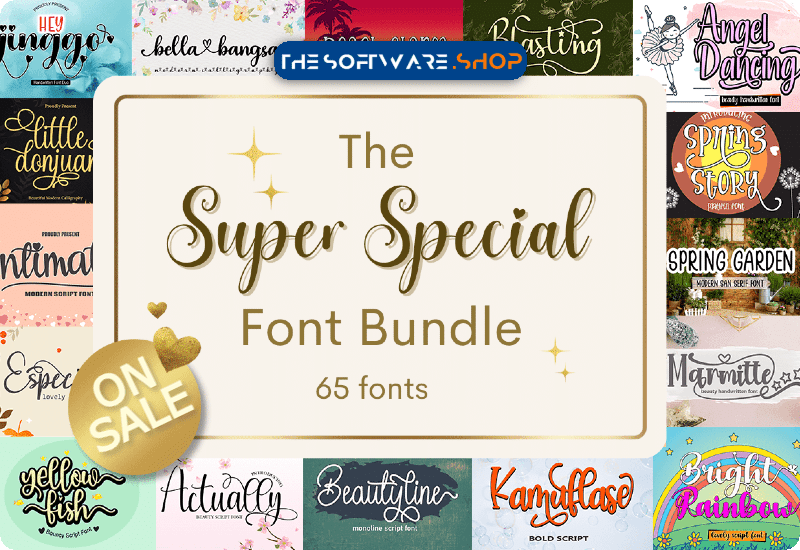
Are you looking to add some pizzazz to your upcoming design projects? Look no further than the Super Special Font Bundle. This collection of 65 stunning fonts by Supersemar Letter includes a variety of romantic script fonts and charming display fonts perfect for invitations, greeting cards, labels, logos, book covers, and more.
Most of the fonts in this bundle are PUA encoded, which means you can access all the beautiful swashes and glyphs with ease. The bundle includes a wide range of premium fonts like:
• Angel Dancing Script & Handwritten Font
• Especially Script & Handwritten Font
• Bright Rainbow Script & Handwritten Font
• Beach Charm Display Font
• Hey Jinggo Script & Handwritten Font
• Majority Script & Handwritten Font
• Miracle Mother Script & Handwritten Font
• Marmitte Script & Handwritten Font
• Actually Script Fonts Font Door Supersemar Letter
• Baby Rose Display Font
• Reminder Script & Handwritten Font
• Kamadatu Display Font
• Bella Bangsa Script & Handwritten Font
• Baby Lelucky Script Fonts Font Door Supersemar Letter
• Valentine Moment Script & Handwritten Font
• Bluesky Script & Handwritten Font
• Ballinese Script & Handwritten Font
• Mandalli Display Font
• Beautyline Script & Handwritten Font
• Dorayaki Script & Handwritten Font
• Battire Script & Handwritten Font
• Yellow Fish Script & Handwritten Font
• Spring Garden Sans Serif Font
• Crispy Duck Display Font
• Puppy Love Display Font
• Pretty Panda Serif Font
• Magical History Script & Handwritten Font
• Spring Story Display Font
• Blasting Script & Handwritten Font
• Prettysally Script & Handwritten Font
• Beauty Sunset Script & Handwritten Font
• Beauty Heaven Display Font
• Flower Garden Script & Handwritten Font
• Historya Script & Handwritten Font
• Easy Peasy Display Font
• Spicyholic Czcionki Script & Handwritten Font
• Brilliant Signature Script & Handwritten Font
• School Diary Script & Handwritten Font
• Jellyshake Script & Handwritten Font
• Sweet Something Script Font
• Championato Display Font
• Hunky Dory Script & Handwritten Font
• Executive Class Script & Handwritten Font
• Sweet Corn Sans Serif Font
• Harvest Love Script & Handwritten Font
• Wonderful Paradise Script & Handwritten Font
• Milky Honey Script & Handwritten Font
• Candle Light Display Font
• Healthy Coconut Script & Handwritten Font
• Glamour Script & Handwritten Font
• Bonaparte CScript & Handwritten Font
• Mayapada Script & Handwritten Font
• Galileo Script & Handwritten Font
• Euphoria Script & Handwritten Font
• Intimatte Script & Handwritten Font
• Kiddos Planet Display Font
• Melody Memory Script & Handwritten Font
• Assasins Script & Handwritten Font
• Candy Berry Display Font
• Aquarilla Sans Serif Font
• Snow White Script & Handwritten Font
• Kamuflase Script & Handwritten Font
• Amsyong Moment Script & Handwritten Font
• Little Donjuan Script & Handwritten Font
• Lavida Script & Handwritten Font
The Super Special Font Bundle includes a variety of romantic script fonts and charming display fonts, making it suitable for a wide range of design projects. Some examples of projects that would work well with these fonts include:
• Wedding invitations and other wedding-related designs such as seating charts, programs, and thank-you cards.
• Greeting cards for all occasions, including birthdays, holidays, and special events.
• Logos and branding materials for businesses and organizations in industries such as fashion, beauty, and lifestyle.
• Book covers, particularly for romance novels, poetry collections, and cookbooks.
• Labels and packaging design for food and beauty products.
• Quotes and typographic posters, T-shirt designs, and other printed products.
• Website and social media graphics, headers, and titles
• Blog and website headlines, subheadings, and other text elements.
Overall, the Super Special Font Bundle can be used for a variety of projects, and it’s perfect for anyone looking to add a touch of romance, charm, and elegance to their designs.